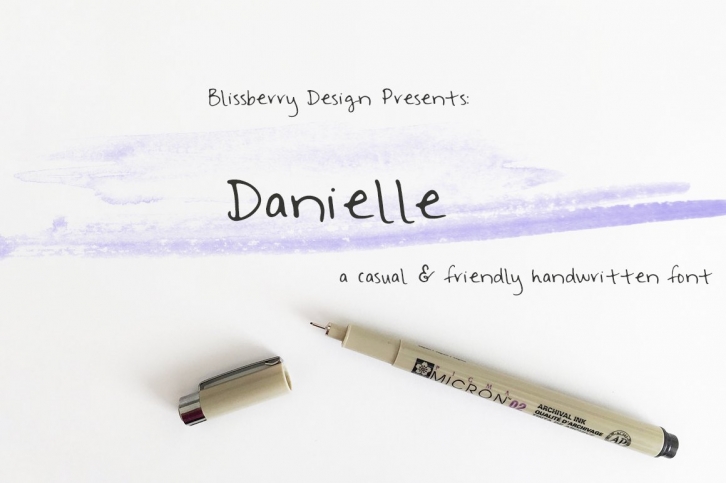
Danielle has all the character and spontaneity of handwriting in a practical font. It was derived from authentic, feminine handwriting, originally created using a 02 micron pen.
This font is perfectly paired with a script, serif or decorative fonts. Useful for creating authentic handwriting in projects such as invitations, greeting cards, posters and more! All type used in the above photos are the Danielle font.